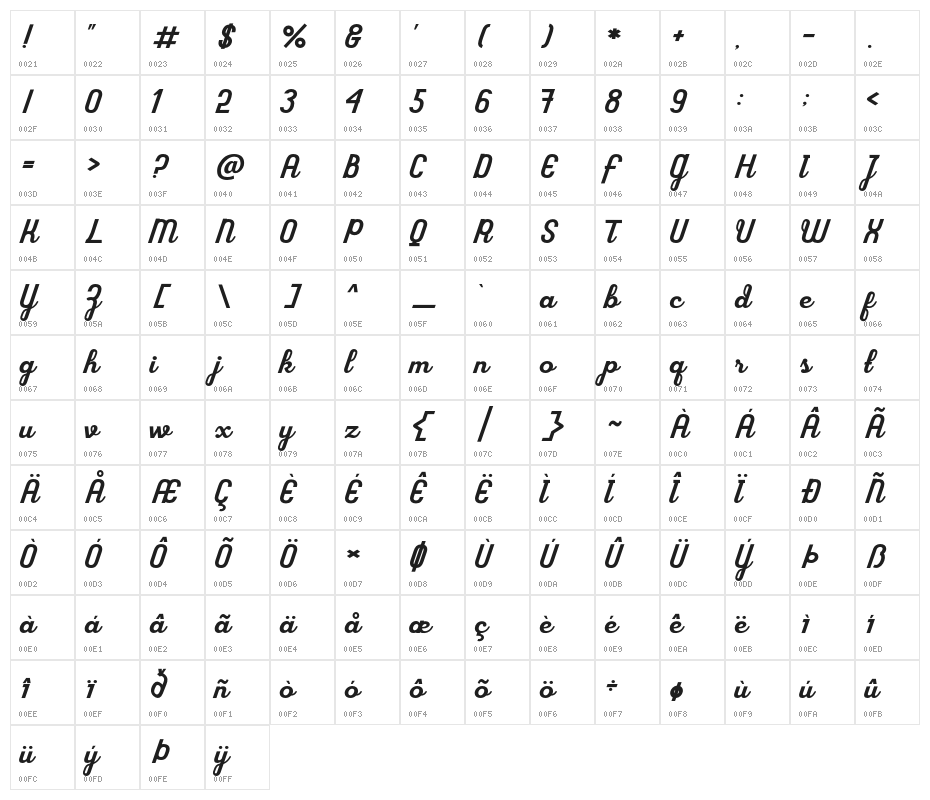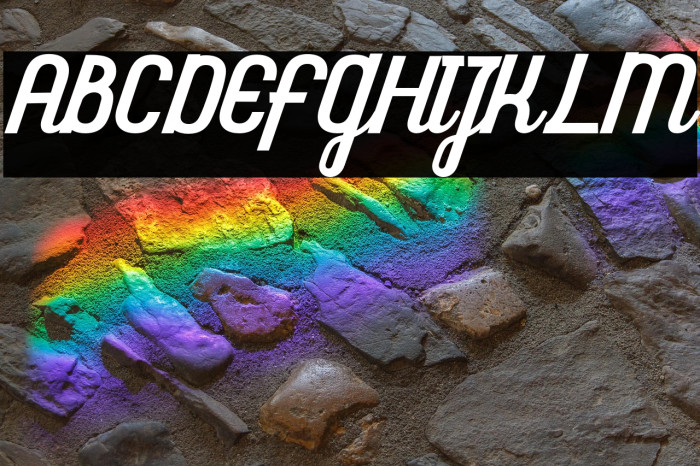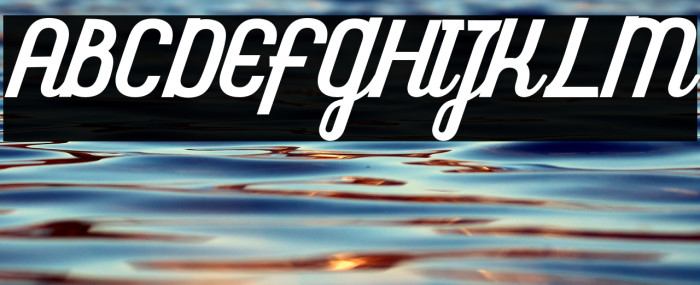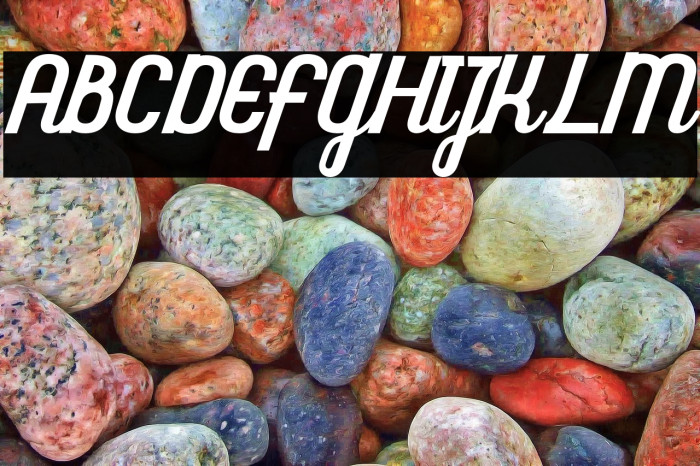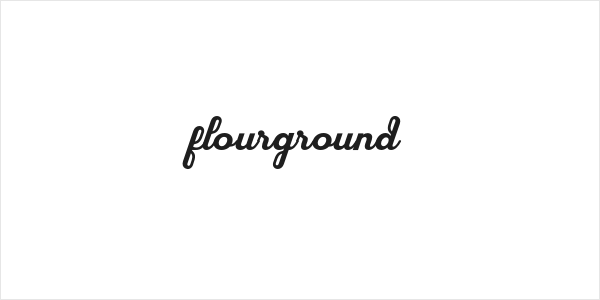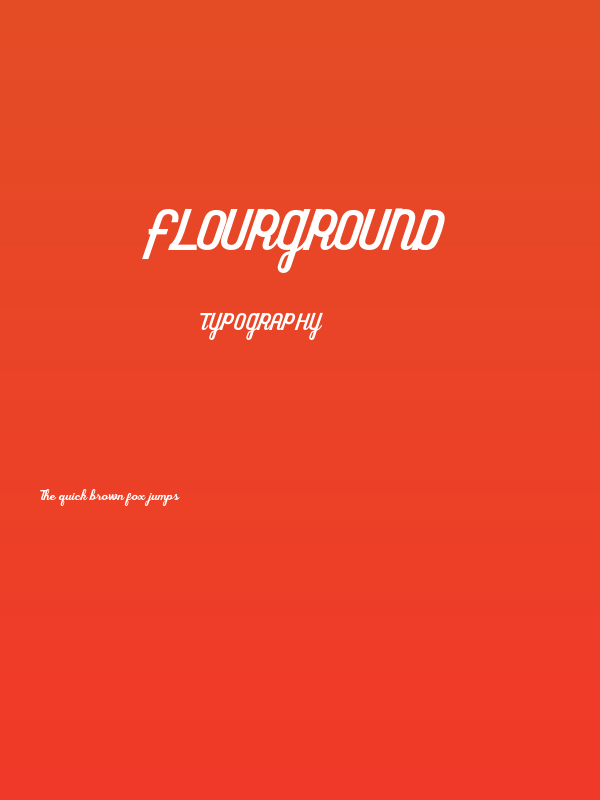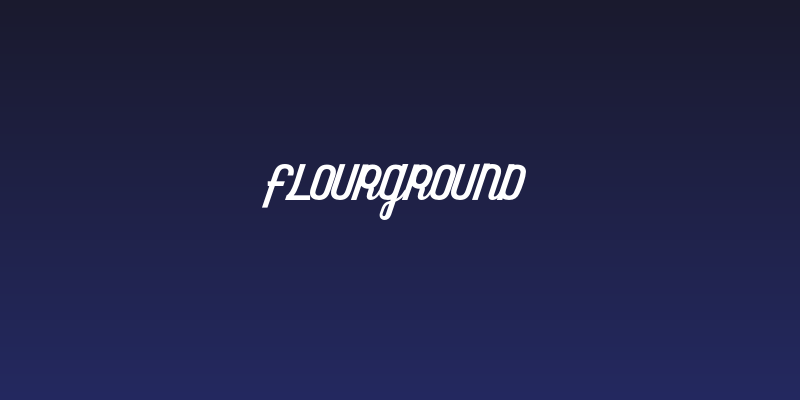
flourground Font
flourground Description
This font features a bold, script style with a distinct slant, giving it a dynamic and energetic appearance. The uppercase letters are tall and slightly condensed, while the lowercase letters maintain a consistent flow with rounded edges and smooth curves. The numerals are clear and legible, matching the overall style of the alphabet. Special characters are designed to complement the letters, maintaining the same bold and flowing characteristics. The font's thick strokes and consistent weight make it highly readable, even at smaller sizes.
| Proposed Projects | Ideal for branding, logo design, headlines, and posters where a bold and energetic script is desired. |